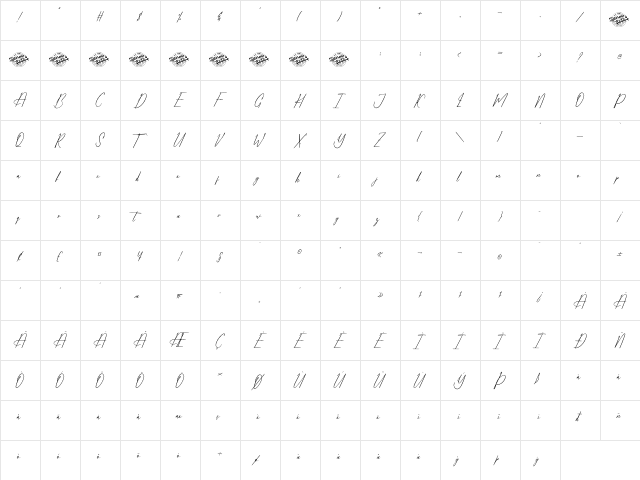
Alfinstare Qobylatin DEMO VERSI Regular Free Font
Foundry: Letterena Studios
Designer: Heru Utama Putra
Design Context for Alfinstare Qobylatin DEMO VERSI
Alfinstare Qobylatin DEMO VERSI is a composed and adaptable typeface that performs quietly and consistently across a wide range of design contexts.